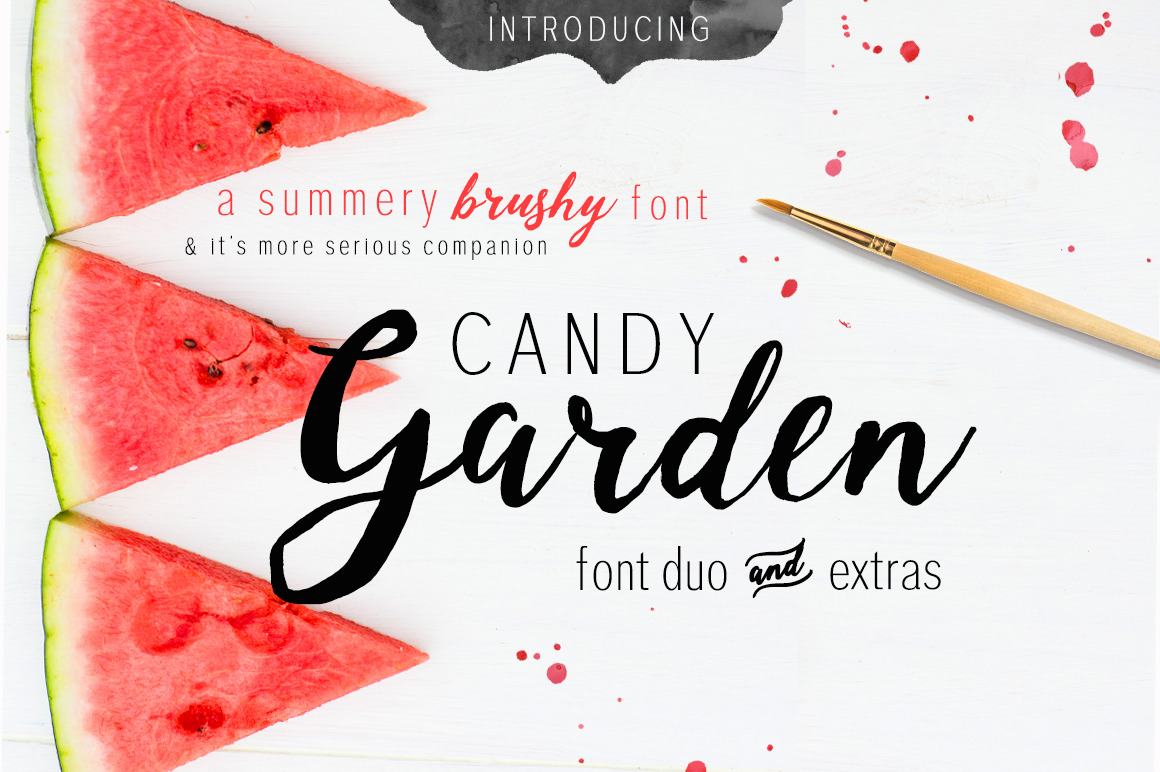
Candy Garden Font Duo + EXTRAS
Sweet, playful and juicy new font duo featuring an incredible collection of 63 watercolor shapes that come to help complement your designs. Whats in the pack:
- Garden - the brushy type .otf
- Candy - the sans serif tall and slim companion .otf
- 63 watercolor shapes to play with all day!